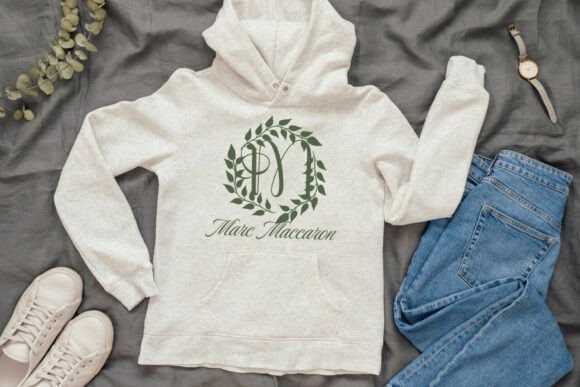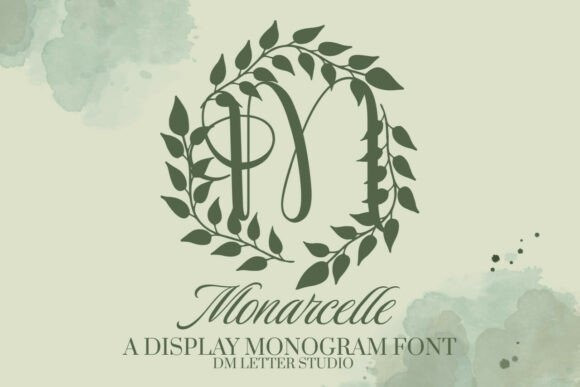
Monarcelle Monogram Font
Monarcelle Monogram Font turns simple initials into poised, elegant marks. Lines feel smooth. Curves stay balanced. Because the counters remain open, tiny tags still read clearly. Use it for wedding suites, boutique logos, keepsake gifts, and luxury packaging. Moreover, Monarcelle pairs beautifully with soft serifs and modern sans, so your layouts look refined without extra work.
Where the Monogram Font shines:
Set single, double, or triple initials for logos, seals, and submarks. Then frame them with laurel rings, oval borders, or fine rules to echo the graceful structure. Since the proportions favor symmetry, polished compositions come together in minutes. As a result, thumbnails stand out on crowded marketplaces and listings feel consistent across products.
Fast setup, polished results
Design tips for Monarcelle Monogram Font
Keep initials large and let white space breathe. Pair your headline monogram with a quiet serif or humanist sans. Meanwhile, add micro shadows, thin inner strokes, or a delicate frame for depth. Because the forms feel airy, metallic accents and textured papers raise perceived value. However, keep the copy short so the monogram remains the hero.
Why creators choose this Monogram Font:
You need elegance that reads at a glance and sells fast. Monarcelle delivers. It catches the eye in thumbnails, speeds your layout process, and keeps your brand voice cohesive from invites to favors. Therefore, every piece feels intentional, premium, and memorable.